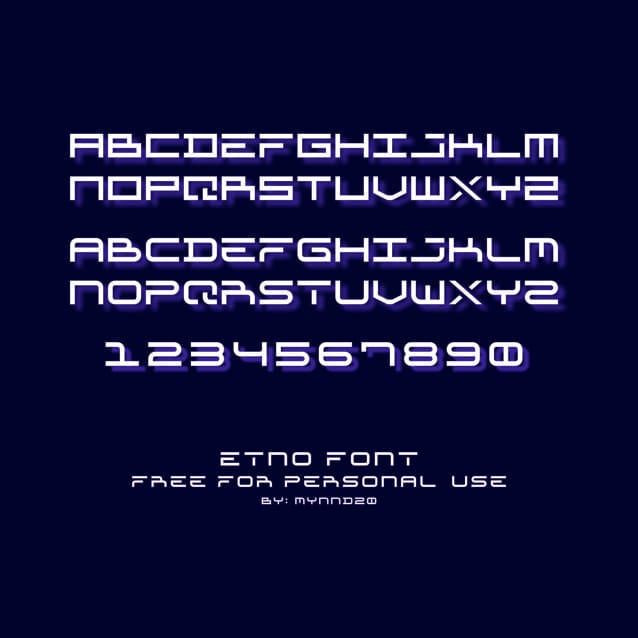
Etno Futuristic Font
Etno Futuristic Font is a futuristic font inspired by the visual of technology that is found in sports logos, techno design, Sci-Fi movies, games, and gadgets. It is perfect for logos, labels, posters, packaging, books, movies, presentations, games, and much more!